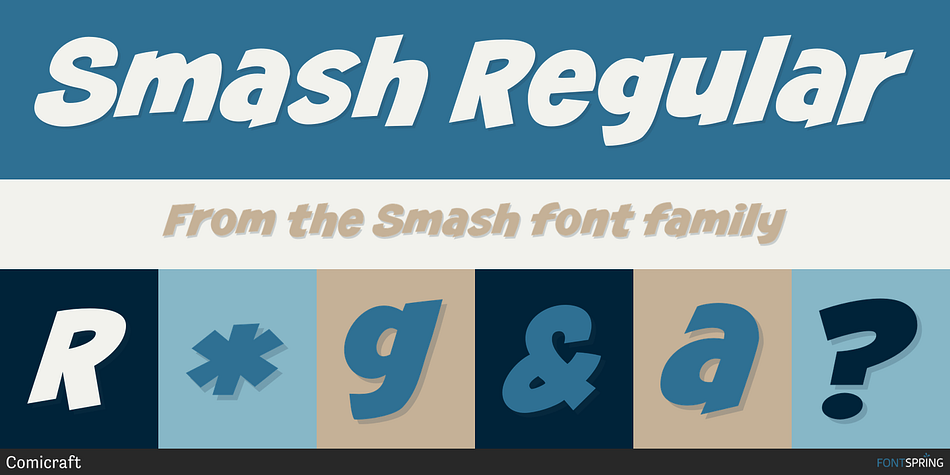
Smash Regular
Designed by John Roshell, Smash is a comic and hand display font family. This typeface has four styles and was published by Comicraft.
Comicraft just want Puny Humans to leave Comicraft alone… Why soldiers shoot at Comicraft? PAH! Bullets do not hurt Comicraft… Bullets only make Comicraft Angry… and when Comicraft angry… COMICRAFT SMASH!